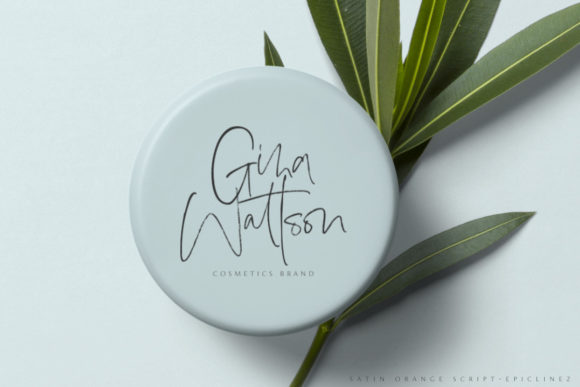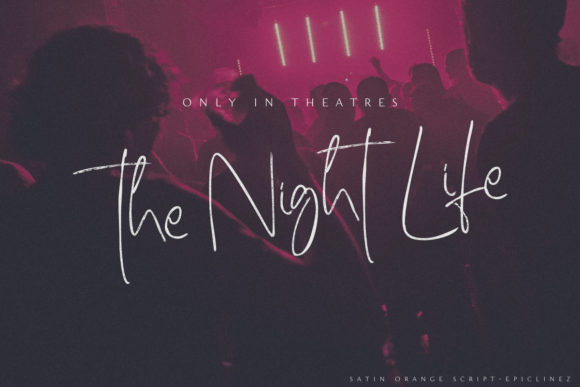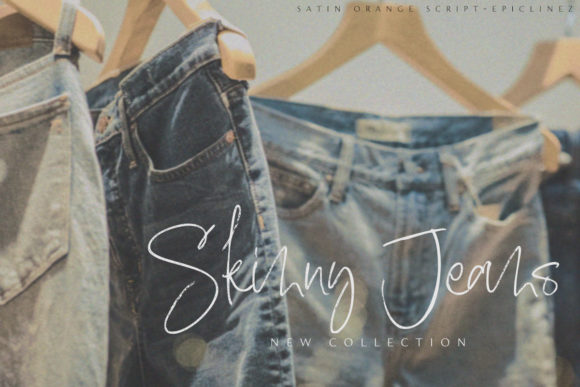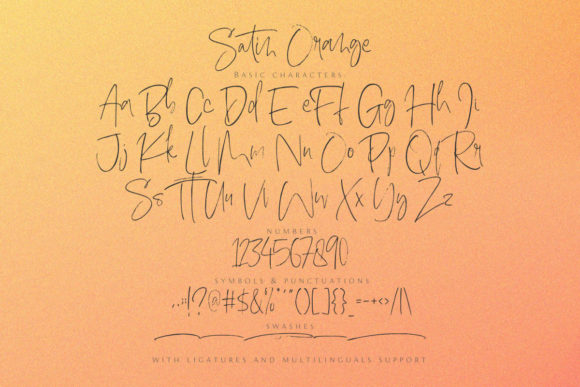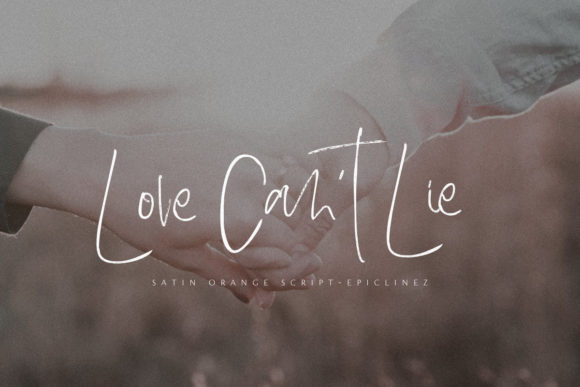
Introduction to Satin Orange Font
Have you ever stumbled upon a font that makes you feel like you’ve found a treasure? A font that’s so elegant, it makes you want to write a love letter with it? For me, that font is the Satin Orange Font. I remember the moment I first laid eyes on it – I was working on a project for a friend’s birthday, and I wanted to add a touch of romance to the invitation. I searched through countless fonts, but none of them seemed to fit the bill until I stumbled upon the Satin Orange Font.
As a designer, I can attest that finding the right font can make all the difference in a project. And that’s exactly why I’m excited to share this beautiful Satin Orange Font with you. With its delicate script and high-quality design, it’s the perfect addition to any creative project, from greeting cards to headlines.
About the Satin Orange Font
Key Features of Satin Orange Font
• Unique, hand-drawn design with a high-quality, artistic feel, perfect for creative projects.
• Unique characteristics include subtle texture and organic feel, making it ideal for creative projects requiring a high level of visual interest.
Honest Review: Satin Orange Font
As a designer, I’m always on the lookout for high-quality design resources that can elevate my creative projects. The Satin Orange Font is a great find, and I’m excited to share my thoughts on it.
• ✨ The font is incredibly versatile, with a wide range of uses from logos to headings.
• ⚠️ The font may not be suitable for body text, as it can be a bit too ornate for longer paragraphs.
• ⚠️ Some users may find the font a bit too bold, so it’s essential to use it judiciously.
Overall, I’m impressed with the Satin Orange Font. It’s a great design resource that can add a touch of elegance to any creative project. With its high quality and transparent background, it’s an excellent choice for designers looking for a unique and eye-catching font. Whether you’re working on a logo, brochure, or website, this font is definitely worth considering.
Tips for Getting the Most Out of Satin Orange Font
Experiment with different font sizes and colors to achieve the desired effect. Pair Satin Orange Font with other design elements, such as images or shapes, to add visual interest to your project.
Satin Orange Font is suitable for a variety of creative projects, including logos, brochures, and social media graphics. Its unique style and high-quality design make it a valuable addition to any design resource collection.
Alternatives to Satin Orange Font
Pacifico is a high-quality, elegant script font that is perfect for creative projects requiring a touch of sophistication. It is available for free download and features a transparent background, making it ideal for overlaying on images. Unlike Satin Orange Font, Pacifico has a more refined and cursive feel, making it suitable for invitations, wedding designs, and other romantic themes.
Great Vibes is a stylish and modern script font that is ideal for creative projects requiring a high level of visual appeal. It features a transparent background and is available for free download, making it a popular design resource among designers. In comparison to Satin Orange Font, Great Vibes has a more vibrant and energetic feel, making it suitable for music, art, and fashion designs.